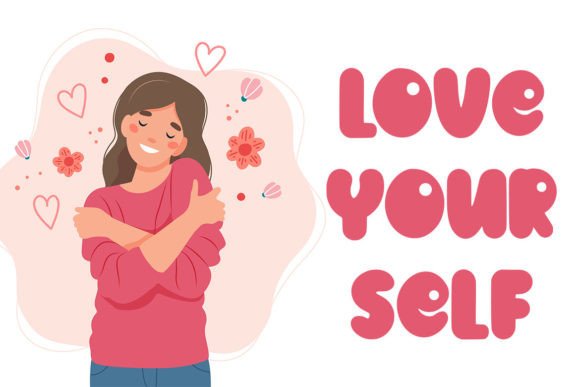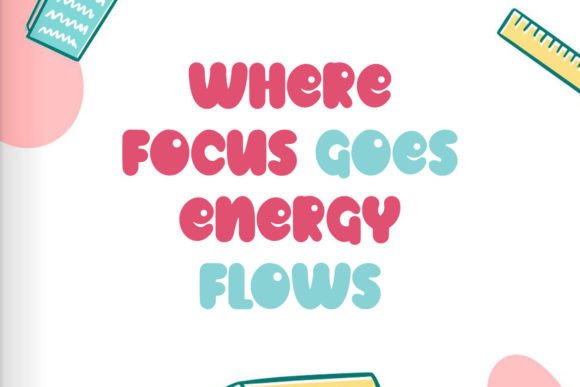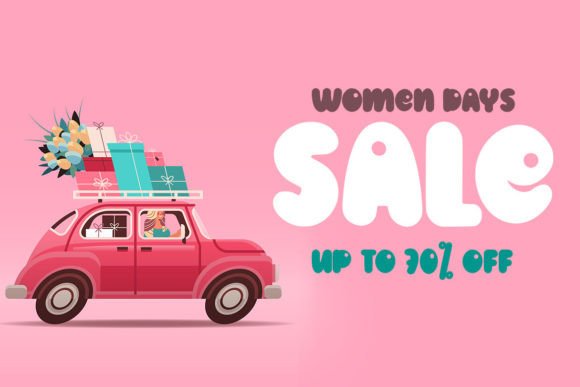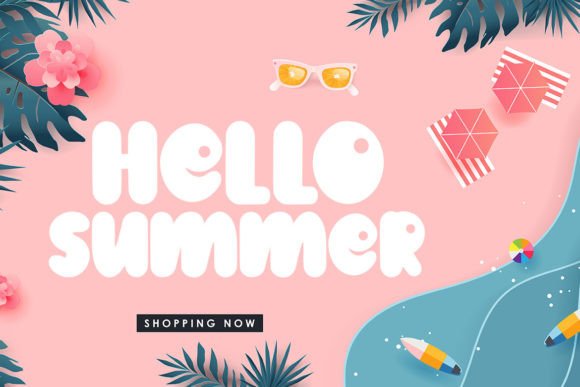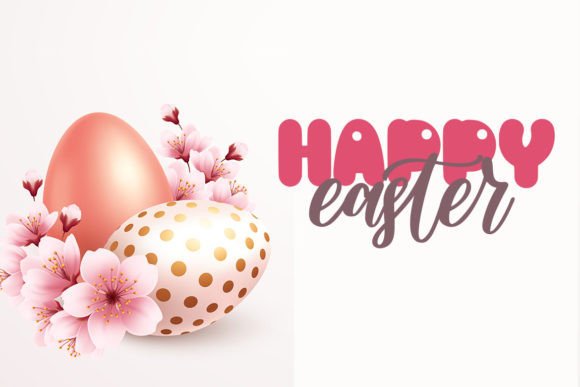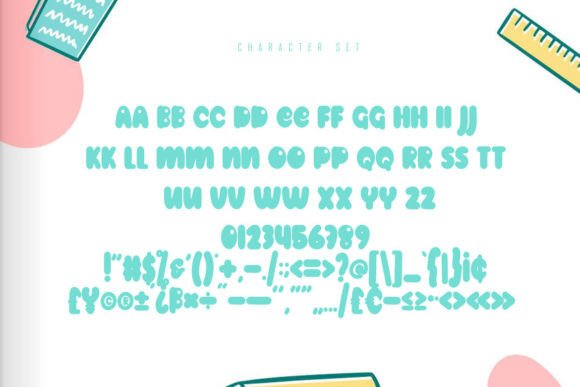
Introduction to Roopey Font
Remember that moment when you’re brainstorming ideas for a creative project and you need a font that perfectly captures the essence of your concept? For designers, finding the right font can make all the difference in elevating a design from good to great. And that’s exactly where the Roopey Font comes in – a fun and bubbly display font that’s sure to bring a smile to your face.
Whether you’re working on a free download project or a high-quality design resource, the Roopey Font is a versatile asset that can add a touch of personality to any creation. With its transparent background and playful feel, this font is perfect for designers who want to add a little extra flair to their work.
- Roopey Font features a unique, modern design with a mix of bold and delicate elements, making it perfect for a variety of creative projects.
- Roopey Font is a great addition to any design collection, offering a fresh and creative way to enhance your designs.
- With its high-quality design and transparent background, Roopey Font is a must-have resource for designers working on creative projects.
One of the standout features of the Roopey Font is its high quality design. The font is clean, modern, and visually appealing, making it perfect for a wide range of design applications. I particularly love the font’s versatility – it’s great for titles, headings, and even body text.
Overall, I’m really impressed with the Roopey Font. While it may have a few limitations, its high quality design and versatility make it a valuable resource for any designer. I highly recommend it for your next creative project.